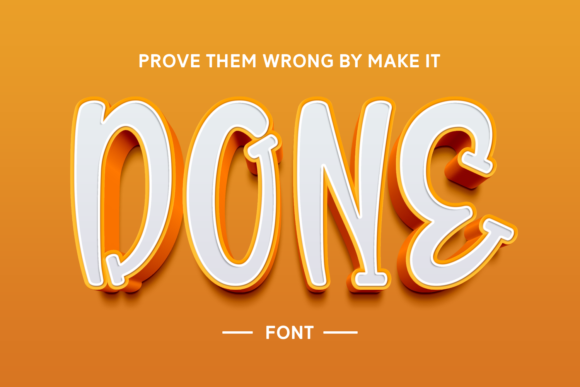
Introducing Done Font: The Perfect Addition to Your Craft and Design Projects
Are you looking for a font that can add a playful touch to your craft and design projects? Look no further than Done Font! This bold and bubbly display font is perfect for making a statement and taking your projects to the next level. In this article, we’ll take a closer look at Done Font, its features, and how it can be used to enhance your craft and design projects.
Key Features of Done Font
- Bold and Bubbly Design: Done Font features a bold and bubbly design that’s perfect for adding a playful element to your projects.
- Display Font: This font is specifically designed as a display font, making it perfect for headlines, titles, and other attention-grabbing elements.
Uses of Done Font in Craft and Design Projects
Done Font can be used in a variety of craft and design projects, including:
- Cricut and Silhouette Projects: Use Done Font to add a playful touch to your Cricut and Silhouette projects, such as vinyl decals, iron-on designs, and paper crafts.
- Party Decorations: Use Done Font to create fun and playful party decorations, such as banners, garlands, and signs.
- DIY Crafts: Add a personal touch to your DIY crafts, such as scrapbook pages, journals, and handmade cards.
- Graphic Design Projects: Use Done Font in your graphic design projects, such as brochures, flyers, and social media graphics.
Benefits of Using Done Font
There are several benefits to using Done Font in your craft and design projects, including:
- Easy to Read: Done Font is a bold and clear font that’s easy to read, even from a distance.
- Versatile: This font can be used in a variety of projects, from craft and design to graphic design and digital marketing.
- Unique and Playful: Done Font adds a unique and playful touch to your projects, setting them apart from more traditional fonts.
Tips for Using Done Font
Here are a few tips for using Done Font in your craft and design projects:
- Use it as a Statement Piece: Use Done Font as a statement piece in your projects, such as a headline or title.
- Pair it with Other Fonts: Pair Done Font with other fonts to create a unique and visually appealing combination.
- Experiment with Colors: Experiment with different colors and textures to add depth and interest to your projects.
- Keep it Simple: Don’t be afraid to keep it simple and use Done Font on its own to make a bold statement.
Done Font is a bold and bubbly display font that’s perfect for adding a playful element to your craft and design projects. With its compatibility with cutting machines such as Cricut and Silhouette, ease of use, and versatility, Done Font is a great addition to any project. Whether you’re a crafty person or a graphic designer, Done Font is sure to become a favorite in your font collection.